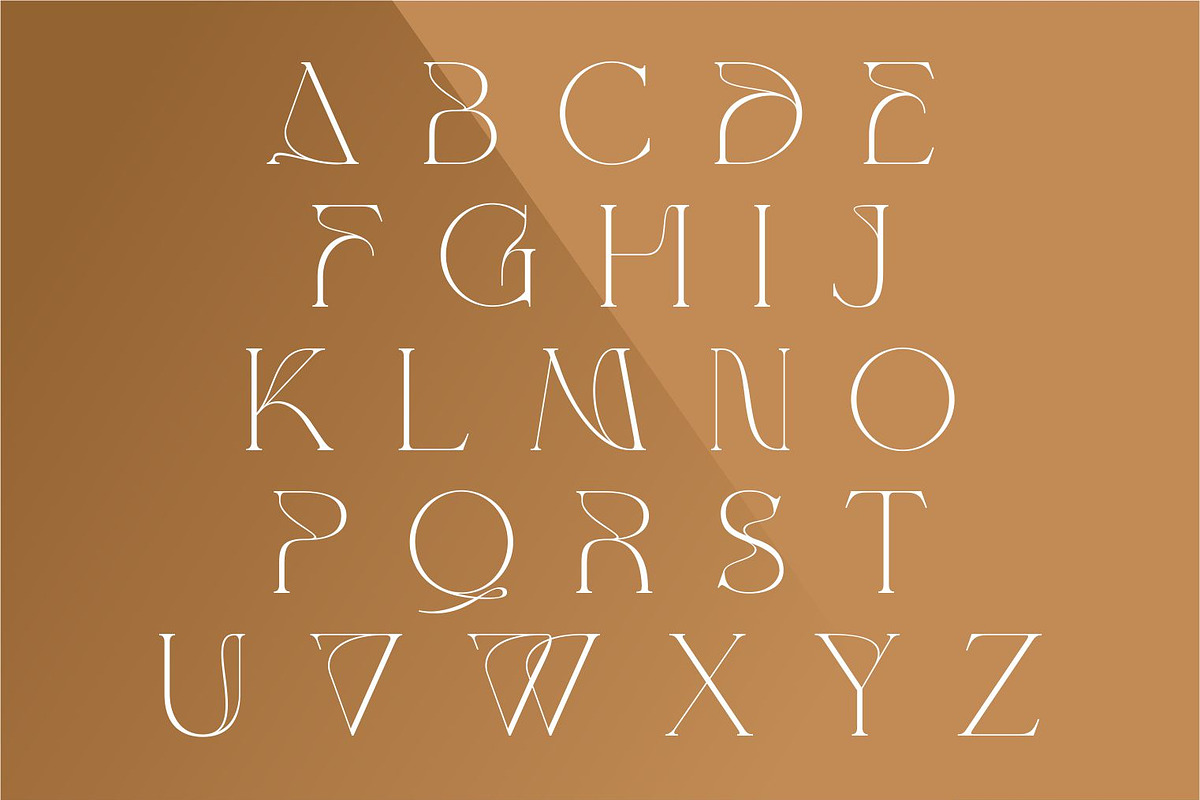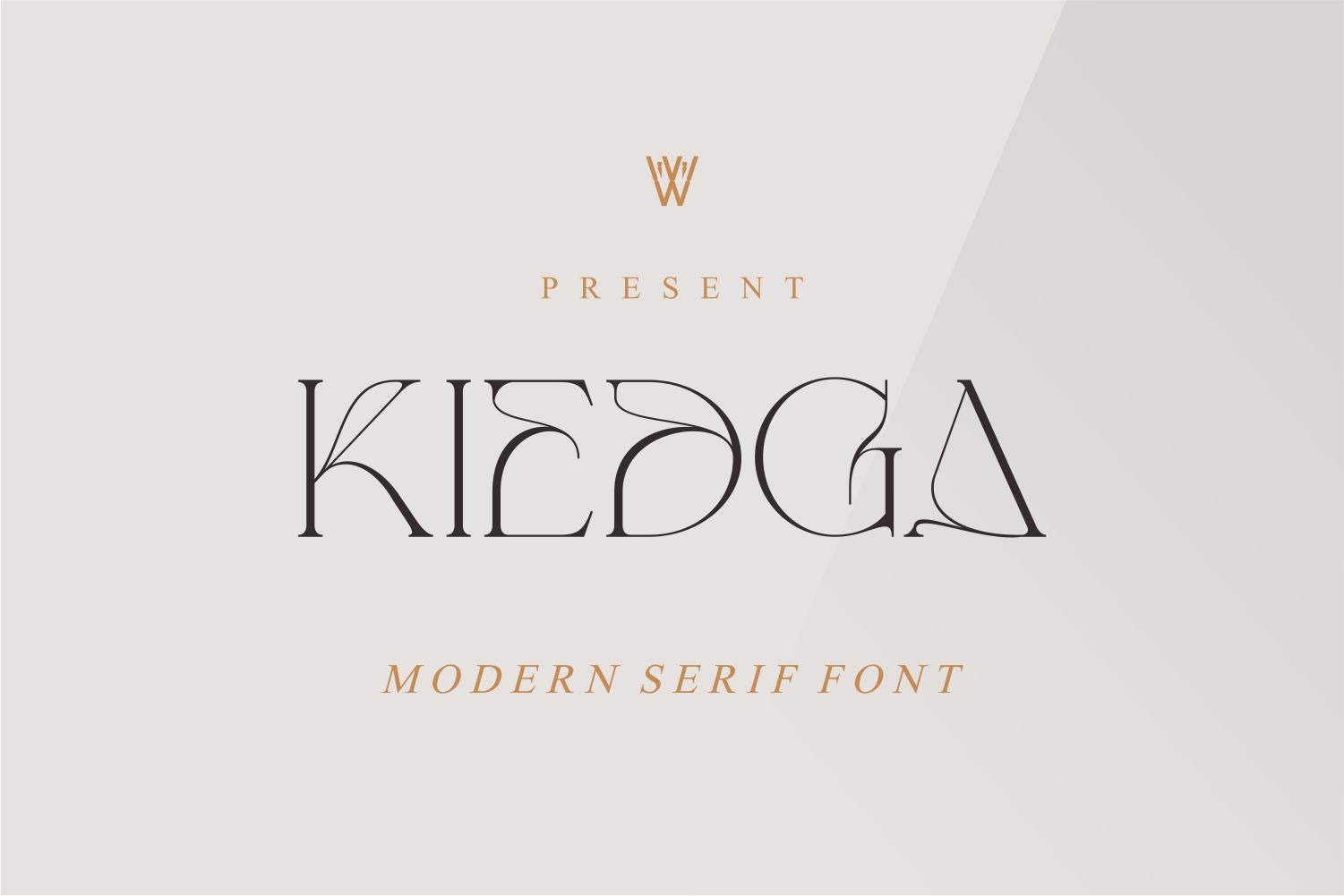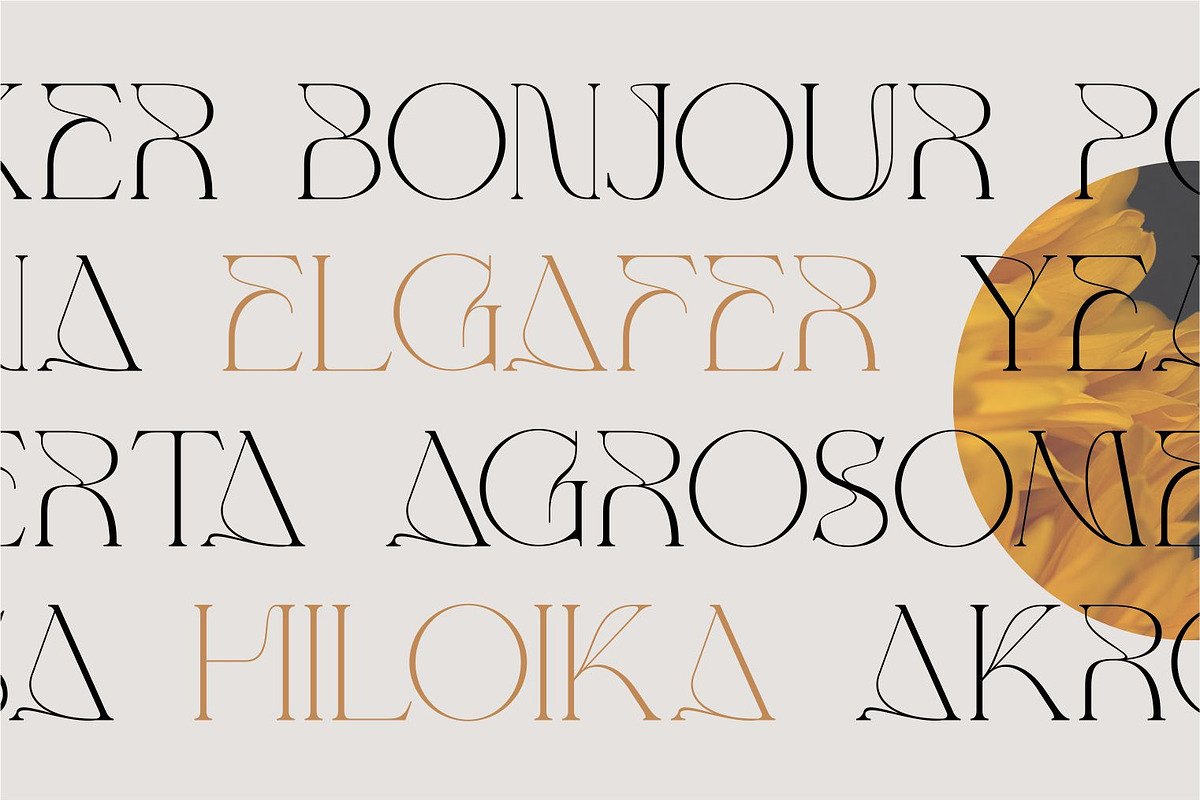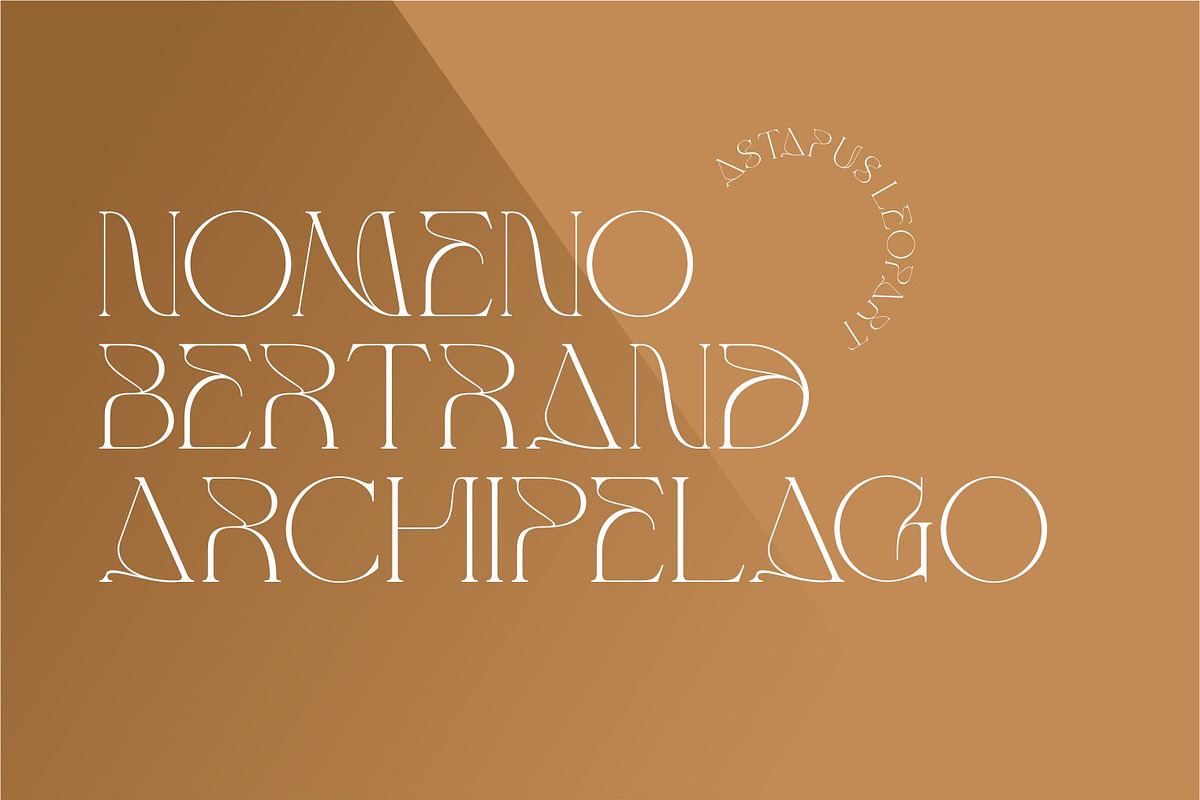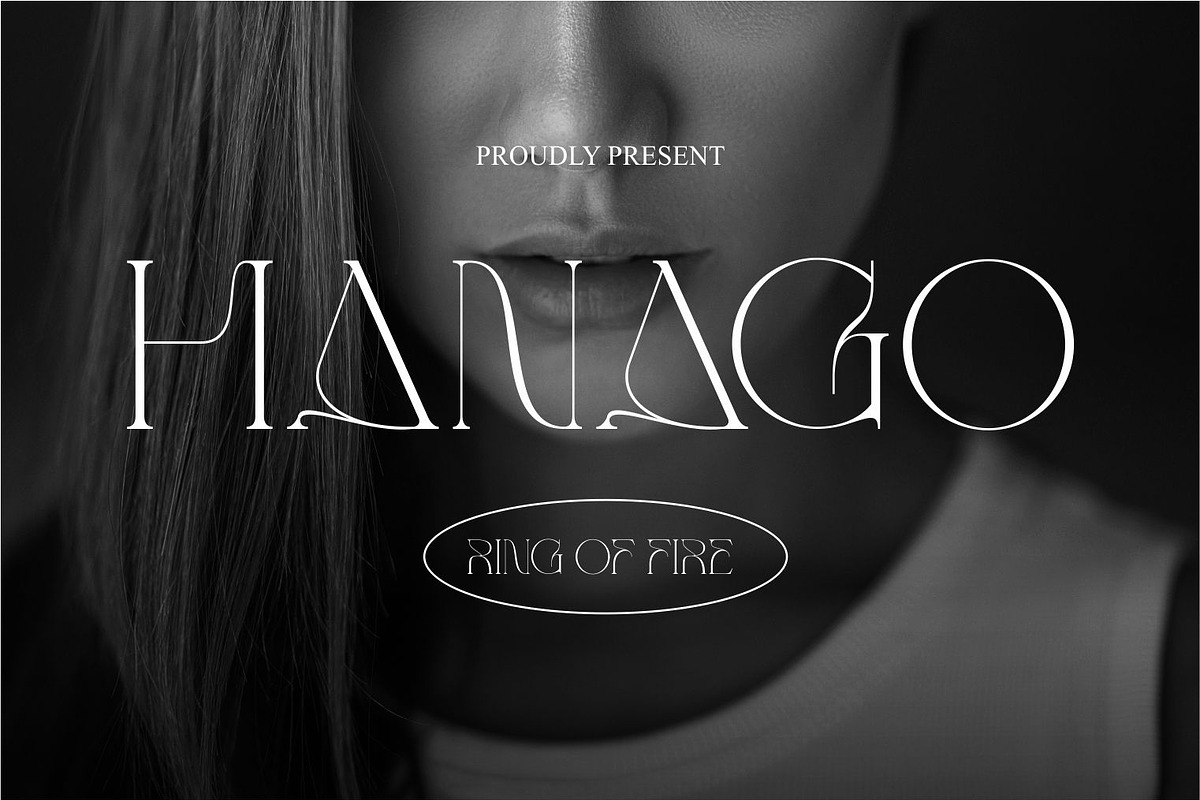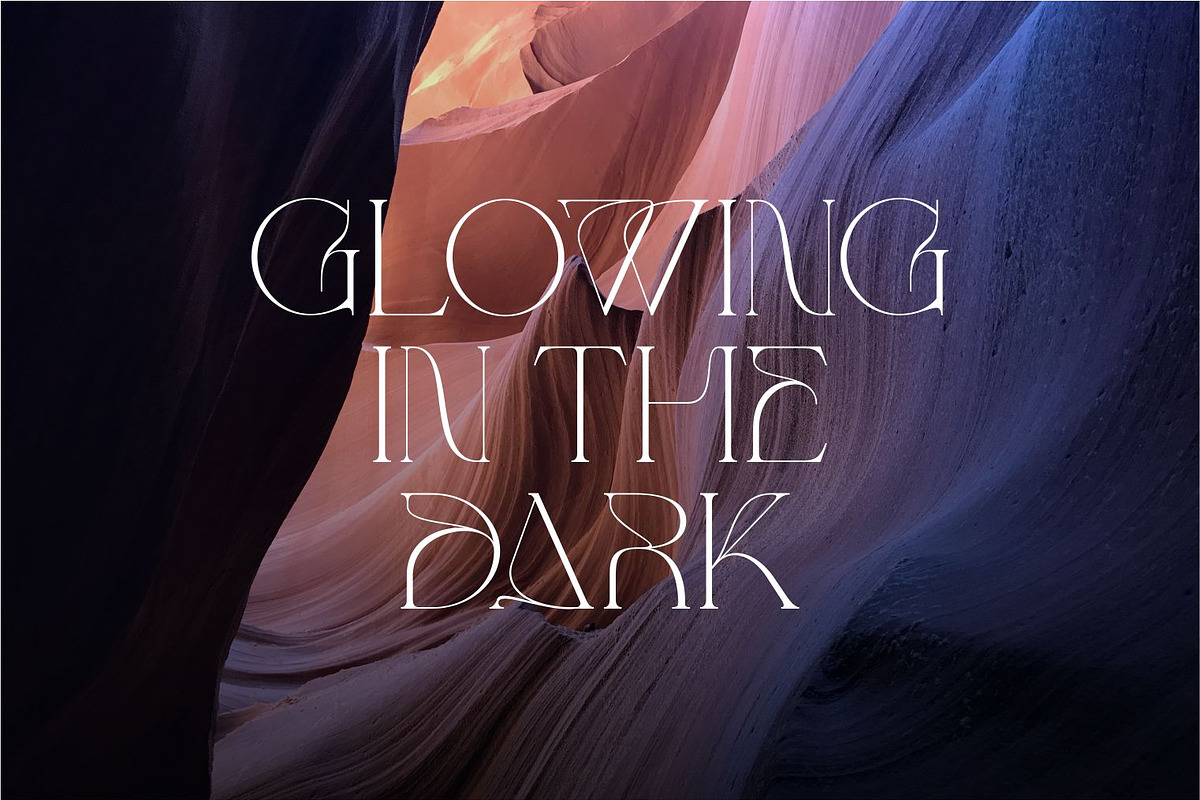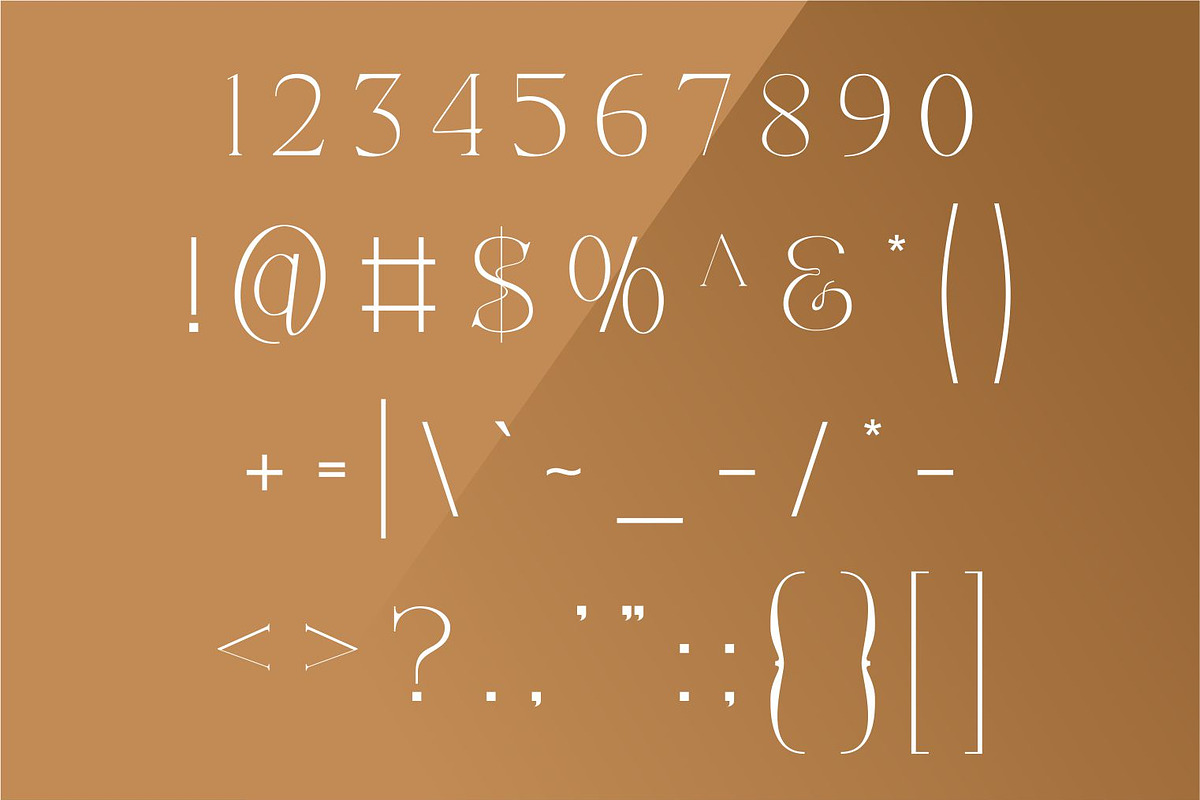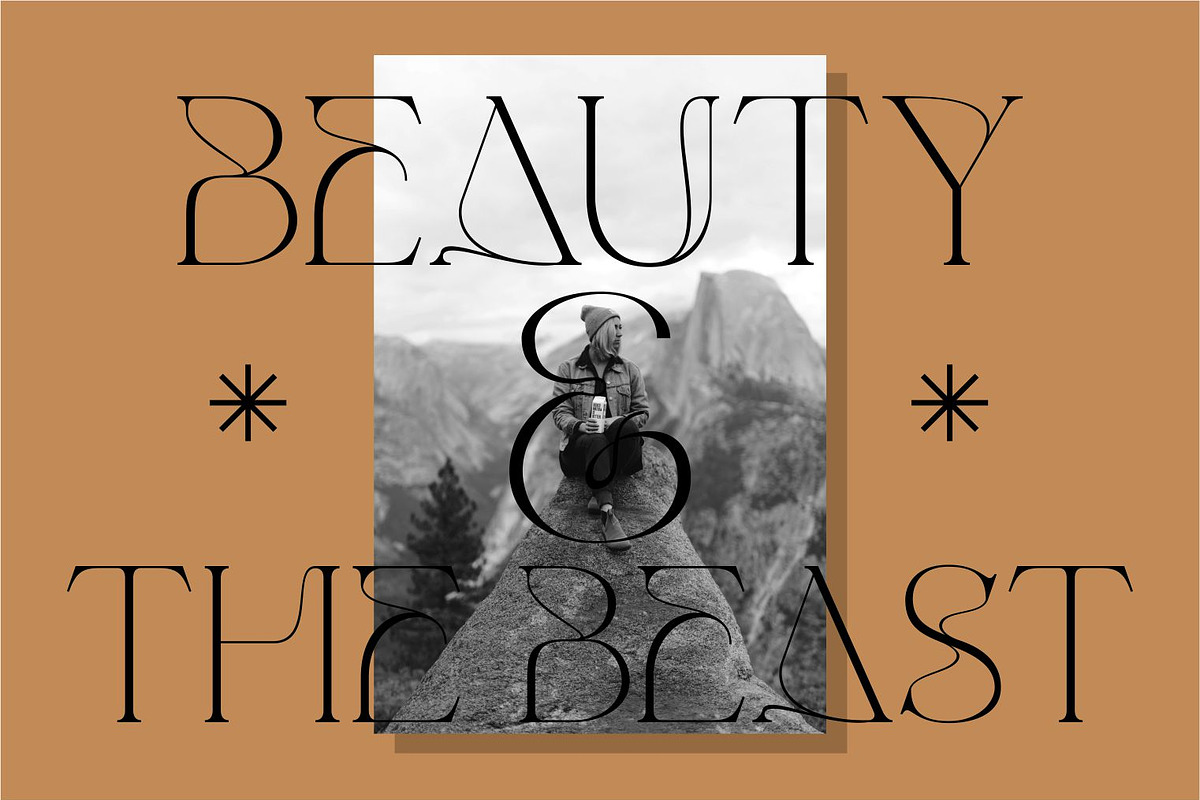
Kiedga Font | Sleek Serif font
The Kiedga Font is a stunning serif typeface that exudes elegance and sophistication. With its graceful curves and exquisite details, this font adds a touch of beauty to any design project. Whether it’s for invitations, branding, or editorial layouts, the Kiedga Font brings a sense of refinement and charm to your work. Elevate your designs with the timeless beauty of the Kiedga Font.